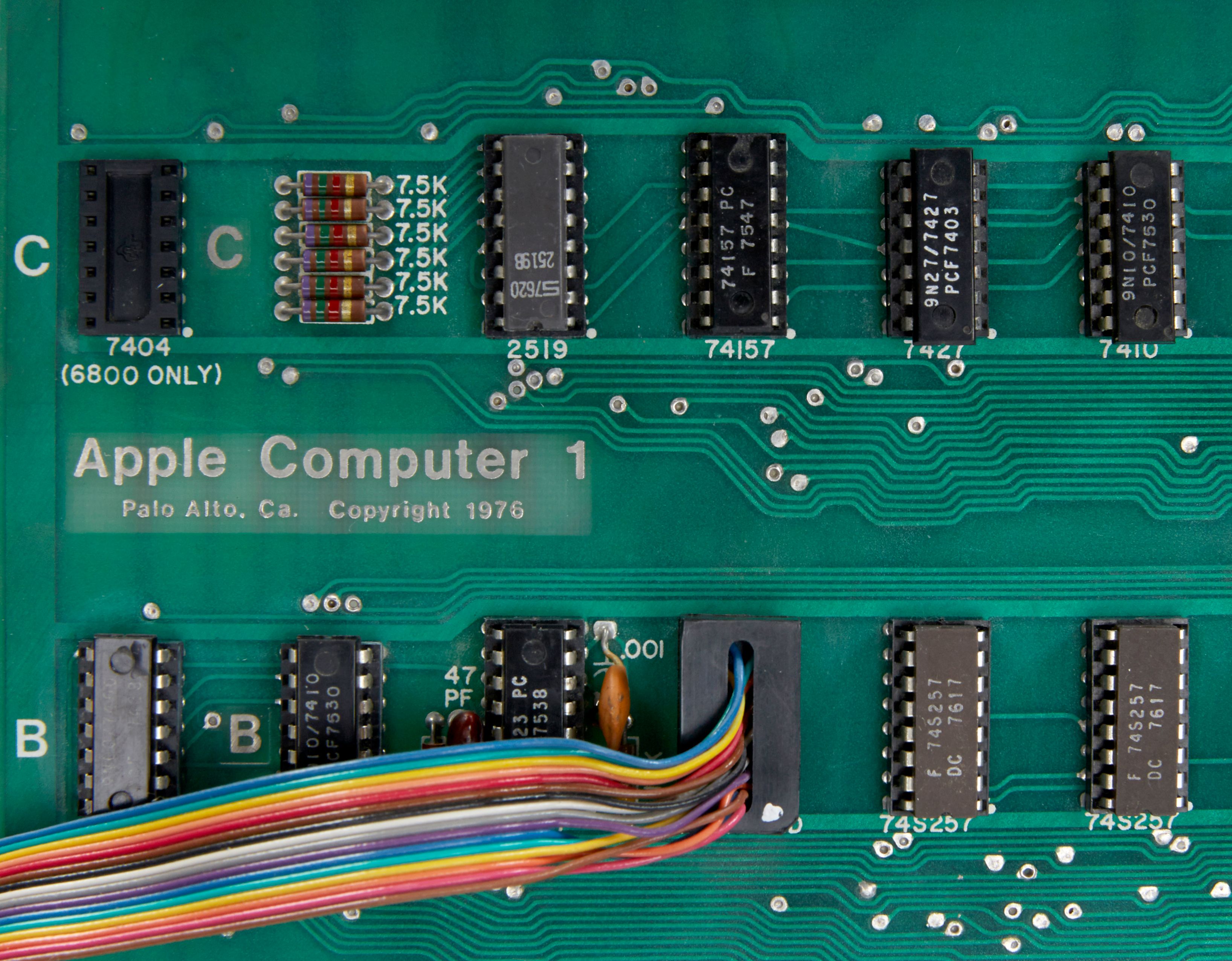
Font ID for Apple 1 mother board
Hi TG I'm new to your site but glad to discover it! I am tasked with creating a large scale replica of the Apple 1 mother board for the upcoming exhibit at Computer Museum of America. I'm stumped on the font used for this identifying panel. There are quite a few fonts that show similarities to the distinguishing r, m, y, t and 7 in this font, bit I haven't found one with all of them. Clearly, it needs to have been designed before 1976. Your ideas greatly appreciated!